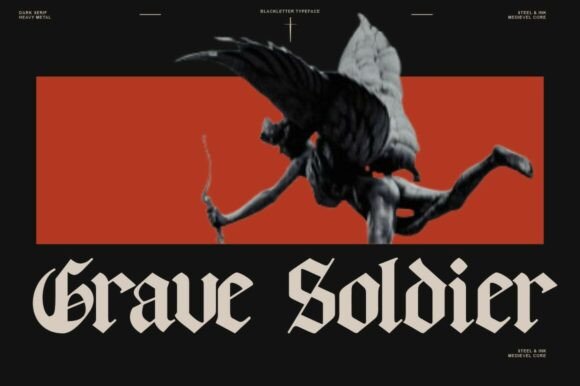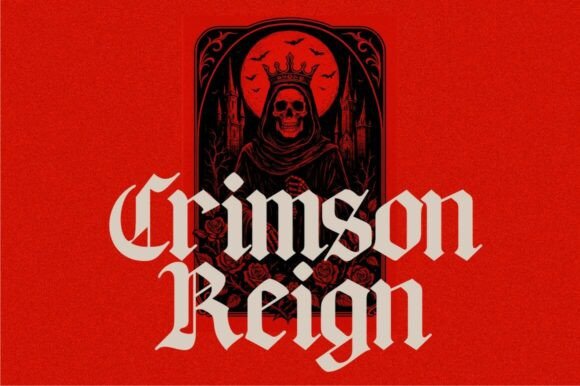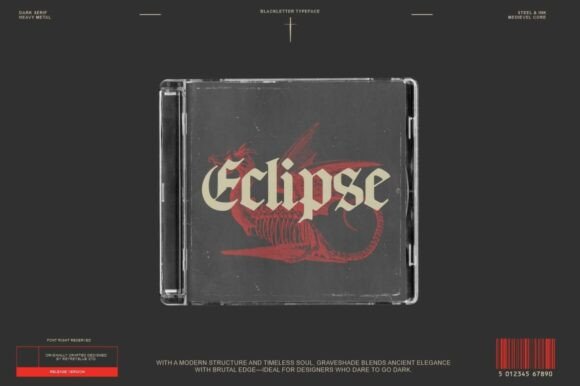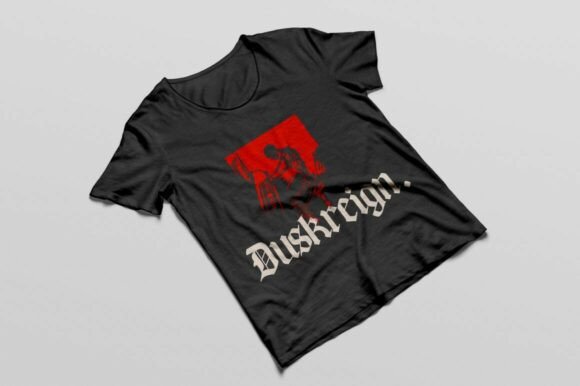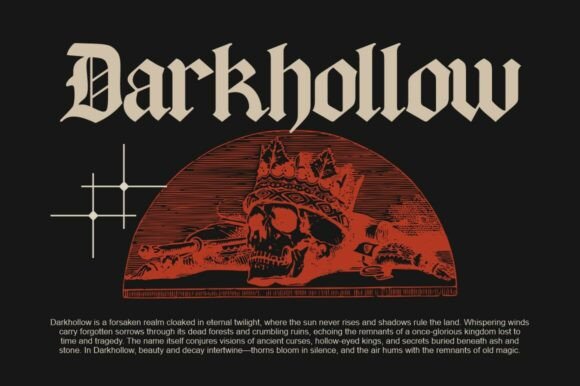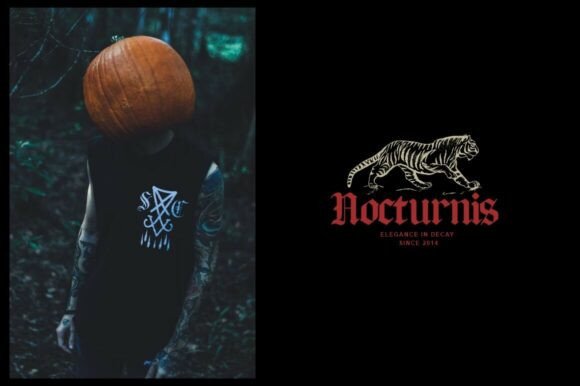
Introduction to Grave Shade Font
Have you ever been brainstorming a creative project and suddenly, the perfect font pops into your mind? For me, that moment came when I stumbled upon the Grave Shade Font. Its bold blackletter style and gothic flair immediately sparked an idea for a dark fantasy poster. But what makes this font so special, and why do designers love it?
Grave Shade Font is a masterclass in blending medieval elegance with modern gothic power. Its heavy metal-inspired aesthetic and razor-sharp serifs make it a go-to choice for horror posters, metal band logos, and vintage occult merchandise. With its commanding presence and timeless feel, it’s no wonder designers are drawn to this high-quality design resource. Whether you’re working on a free download project or need a font with a transparent background, Grave Shade Font is sure to deliver the intensity you’re looking for.
Key Features of Grave Shade Font
- Perfect for designers and artists working on projects that require a touch of elegance and sophistication
Honest Review: Grave Shade Font
I recently had the chance to play around with the Grave Shade Font, and I’m excited to share my thoughts on it.
✨ One of the things I really like about the Grave Shade Font is its high quality and crisp design. It’s perfect for any creative project where you want to add a touch of elegance and sophistication.
✨ Another great feature is the font’s versatility. It comes with a transparent background, making it easy to layer over any image or design element.
⚠️ Additionally, the font only includes a limited character set, which may not be ideal for designers working on projects that require a wide range of characters.
Overall, I think the Grave Shade Font is a solid choice for designers looking for a high-quality, elegant font for their creative projects. While it has some limitations, its versatility and crisp design make it a worthwhile investment.
Whether you’re working on a design project or just looking for a new font to add to your collection, the Grave Shade Font is definitely worth checking out.
How to Use Grave Shade Font
Grave Shade Font Overview
The Grave Shade Font is a high-quality design resource ideal for creative projects that require a touch of elegance and sophistication. This font features a transparent background, making it perfect for use on various backgrounds.
Getting the Most Out of Grave Shade Font
To get the most out of the Grave Shade Font, experiment with different font sizes, colors, and combinations to create a unique look that suits your project’s theme and style.
The Grave Shade Font is perfect for use in various creative projects, including:
- Graphic novels and comic books
- Artistic and creative projects